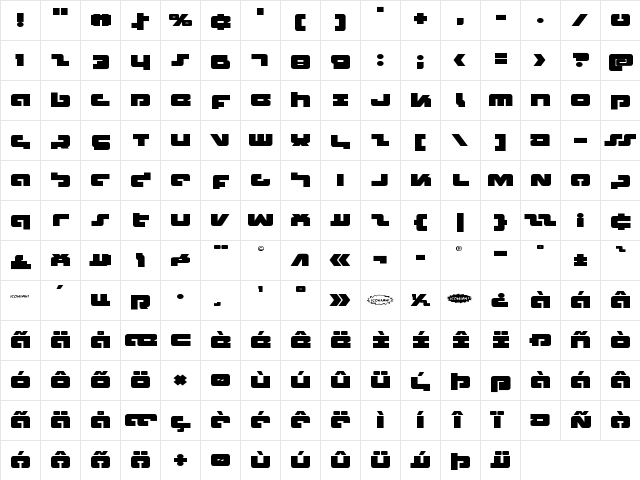
Boomstick Expanded Expanded
Design Context for Boomstick Expanded Typeface
Boomstick Expanded takes a measured approach to typography — its balanced proportions and neutral character make it a reliable workhorse for both digital and print work.